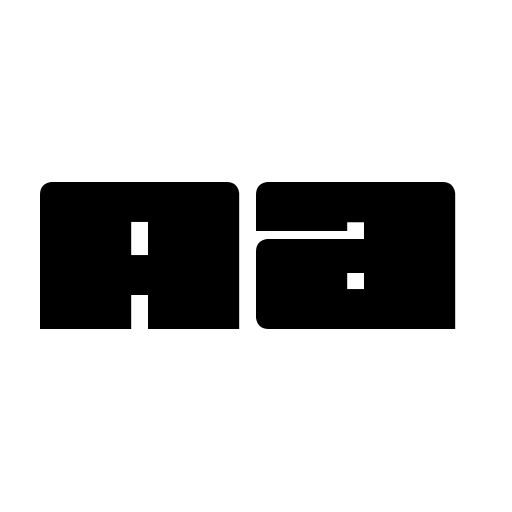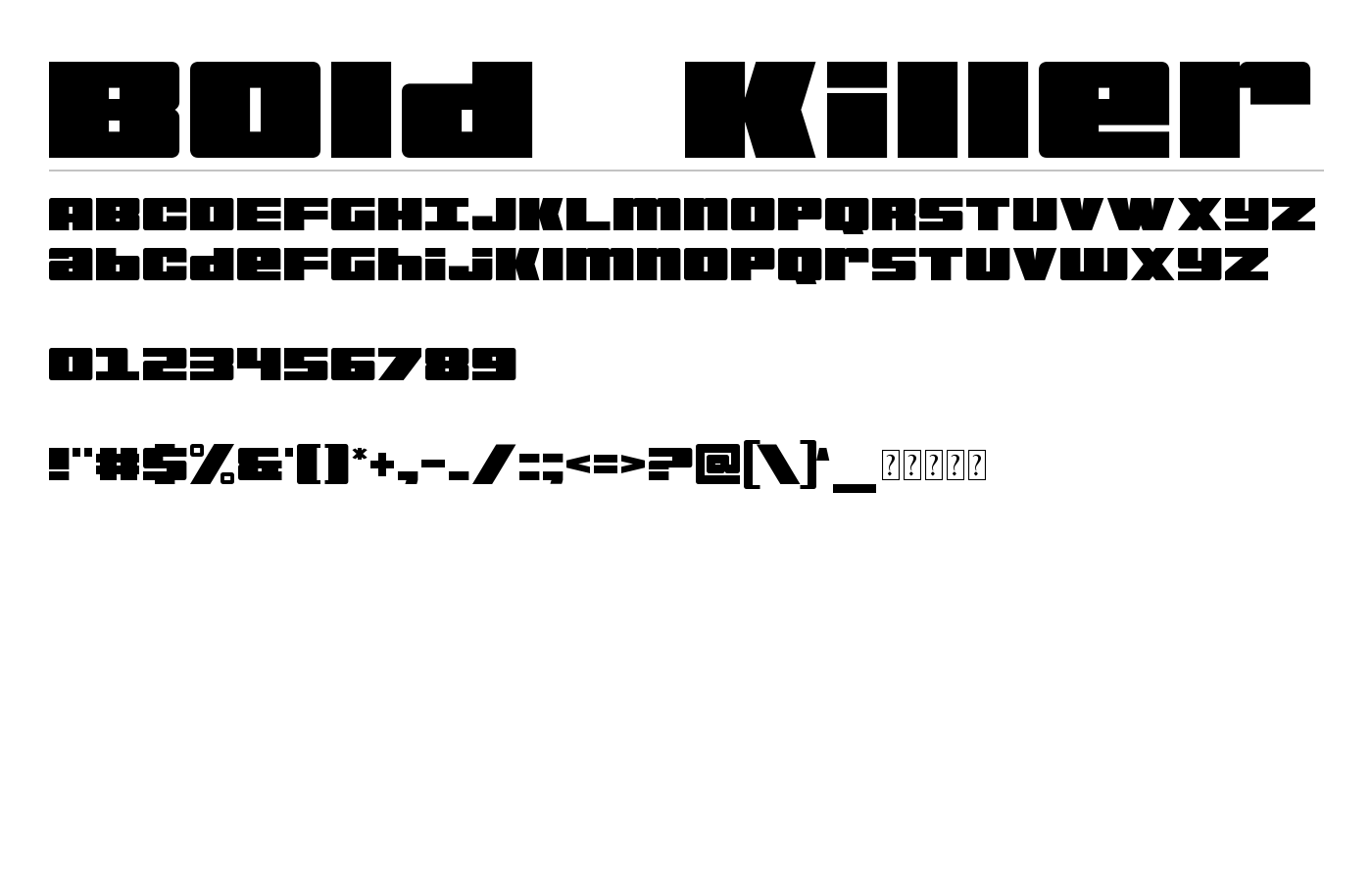
Bold Killer is a striking, heavy-weight sans serif font with a strong, blocky appearance and uniform stroke widths that create a powerful, industrial feel. Its wide, solid letterforms and tight spacing make it ideal for impactful headlines, logos, and designs that demand attention with a bold and confident personality. This font works best in branding and display contexts where strength and modernity need to stand out.
Bold Killer Font
About Bold Killer Font